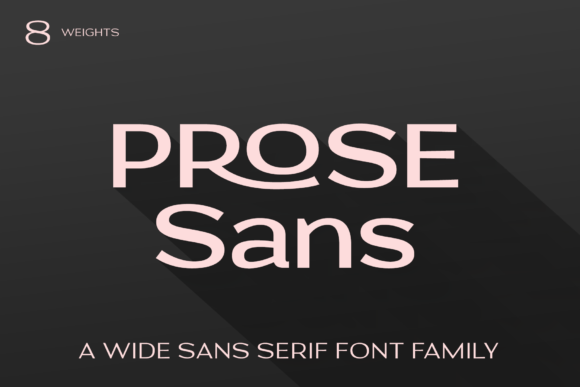
**Introducing Prose Font: The Epitome of Grace and Sophistication**
In the realm of typography, where letters dance and words come to life, Prose Font emerges as a masterpiece of elegance and refinement. This meticulously crafted sans serif font, brought forth by the visionary Ayca Atalay, is an ode to timeless style and modern aesthetics.
Prose's wide and graceful strokes exude an air of sophistication that captivates the eye. Its carefully balanced curves and sharp angles create a visual harmony that dances effortlessly across the page. The standard and discretionary ligatures, like nimble fingers, weave the letters together, achieving a tailored look that elevates your designs to new heights.
Whether you're crafting a striking brand logo, an unforgettable poster, or any other design masterpiece, Prose Font stands ready to lend its exquisite touch. Its versatility knows no bounds, adapting seamlessly to a myriad of creative endeavors.
But Prose Font is more than just a collection of letters; it's an invitation to express your unique style and leave an indelible mark on the world. Its PUA encoding grants you effortless access to a treasure trove of glyphs and swashes, empowering you to unleash your creativity and create designs that resonate with individuality and flair.
**Prose Font: Where Beauty Meets Functionality**
In the ever-evolving landscape of digital design, Prose Font stands as a beacon of both aesthetic appeal and practical functionality. Whether you seek to establish a strong brand identity, craft compelling marketing materials, or simply add a touch of sophistication to your personal projects, Prose Font delivers unparalleled versatility and ease of use.
Its crisp and legible character set ensures that your message is conveyed with clarity and impact, even at smaller sizes. The generous character spacing and kerning allow for optimal readability, ensuring that your designs are both visually pleasing and accessible to all.
Prose Font's extensive language support opens up a world of possibilities for multilingual designers. Its glyphs embrace a wide range of languages and alphabets, empowering you to communicate your message to a global audience with elegance and precision.
**Prose Font: The Key to Unlocking Your Creative Potential**
As a creative professional, you understand the profound impact that typography can have on your designs. Prose Font is the key to unlocking your full creative potential, providing you with the tools to express your unique vision with confidence and flair.
Its wide range of weights and styles allows you to tailor your designs to any mood or occasion. From delicate hairlines to bold and impactful displays, Prose Font offers the flexibility to adapt seamlessly to your evolving needs.